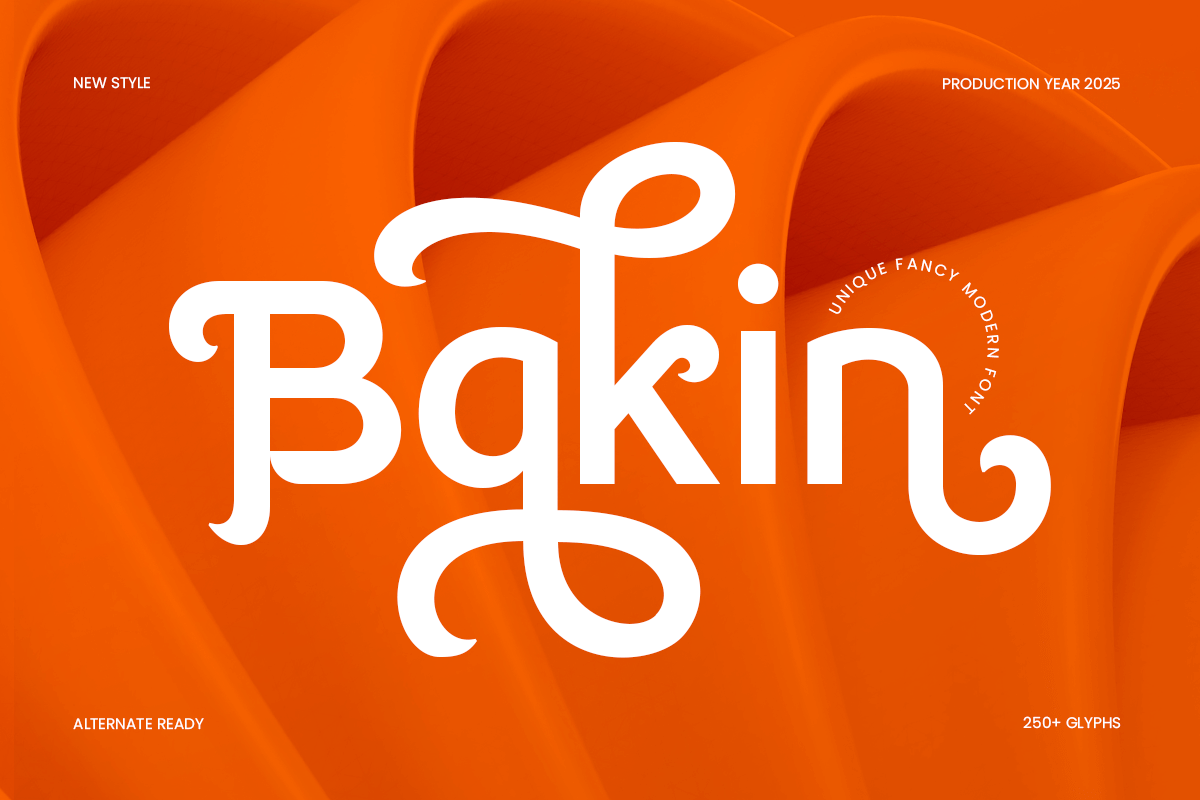
Bakin
-Modern Fancy Branding Font
Bakin - Modern Fancy Branding Font
Bakin is a modern fancy branding sans serif font designed for professionals who want to stand out. With its stylish shapes and clean execution, Bakin is a perfect fit for corporate branding, creative business visuals, and modern product designs.
The character design blends geometric balance with a playful yet professional touch, allowing your brand to be expressive without losing clarity. Whether used in logos, packaging, tech branding, or presentations, Bakin communicates innovation and elegance.
Use Bakin to elevate your projects with a font that bridges creative flair and corporate trust.
Bakin – Modern Fancy Branding Sans Serif Font Features
• Stylish geometric sans serif design
• Ideal for logos, branding, and tech presentations
Level up your brand presence with Bakin – where creativity meets professionalism. 🧩📊